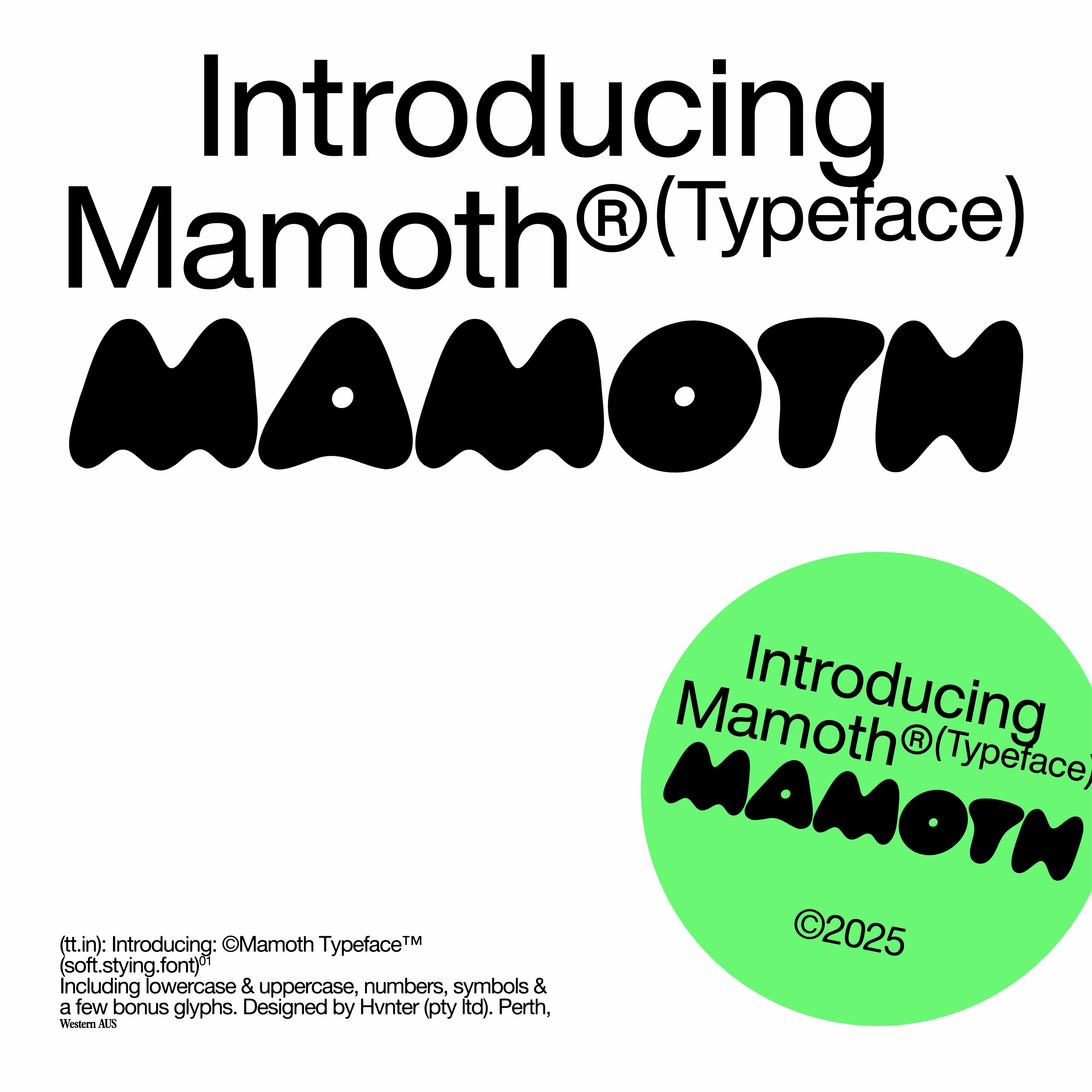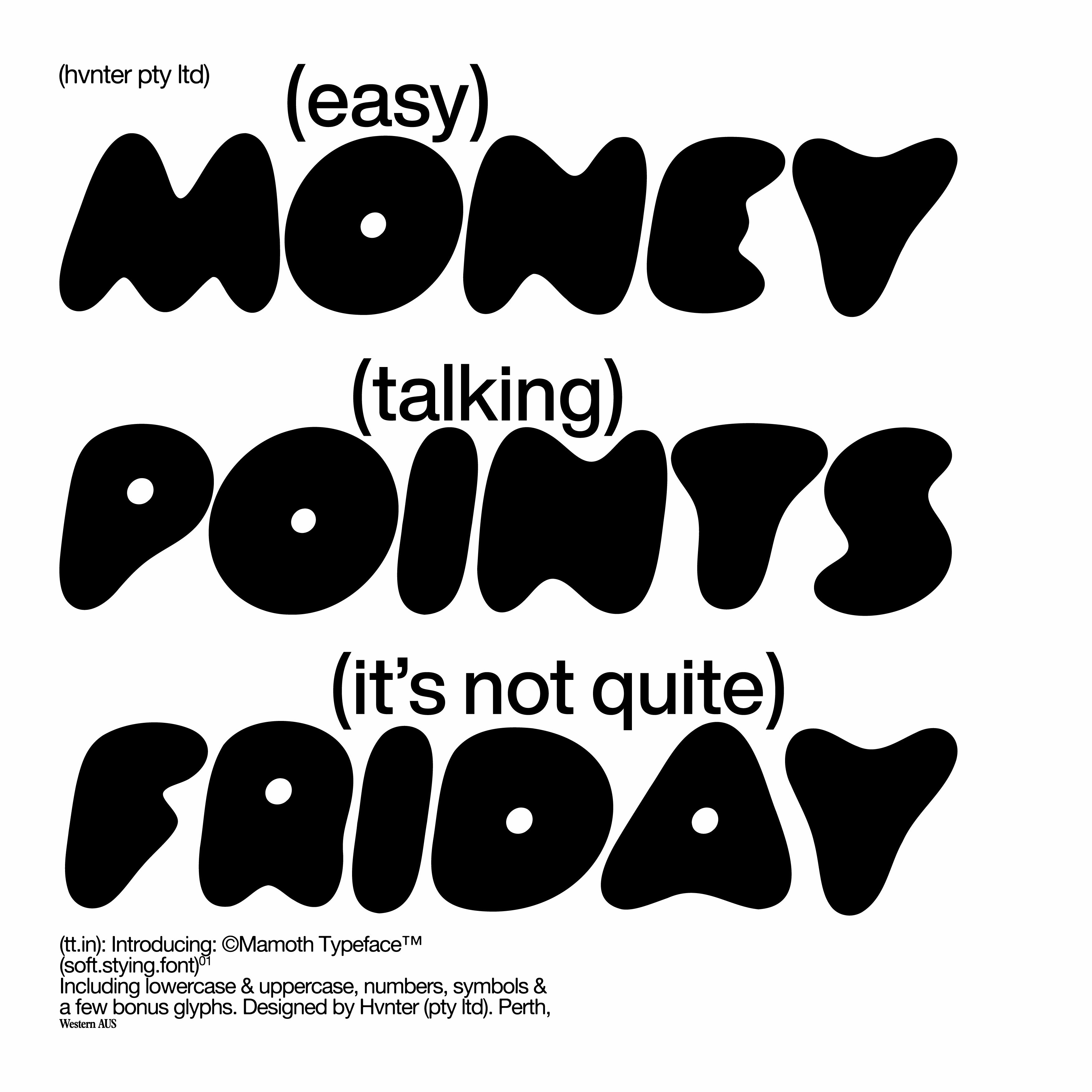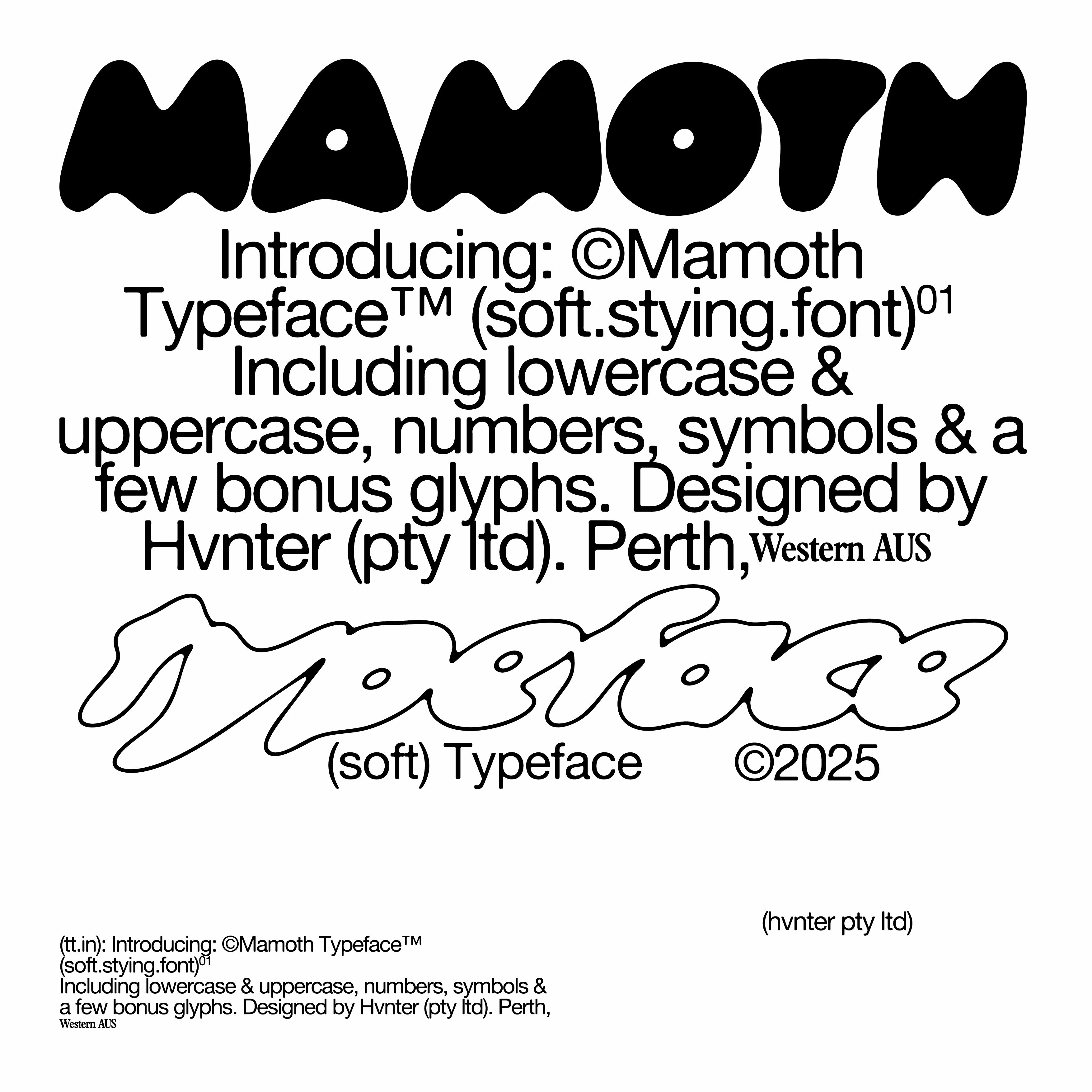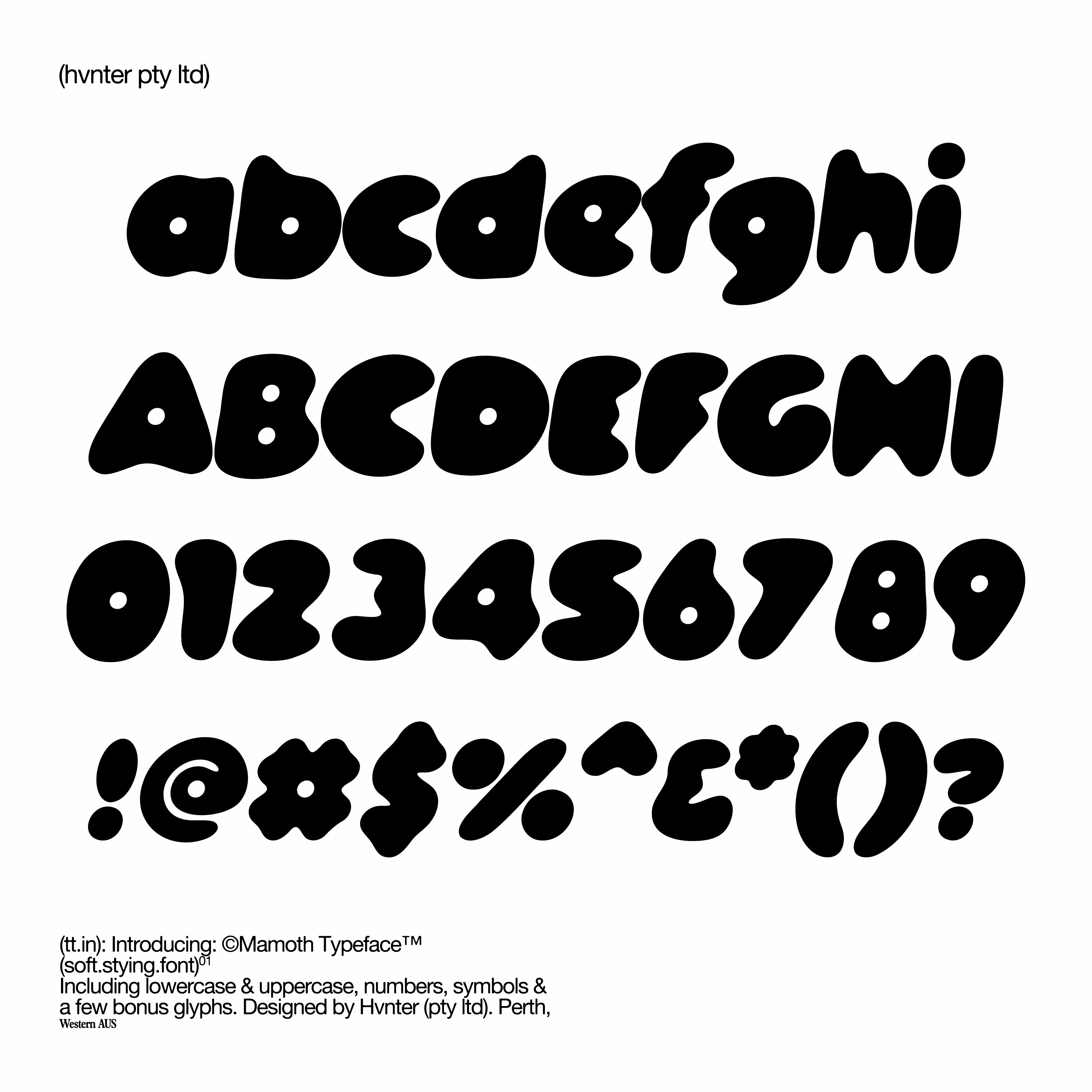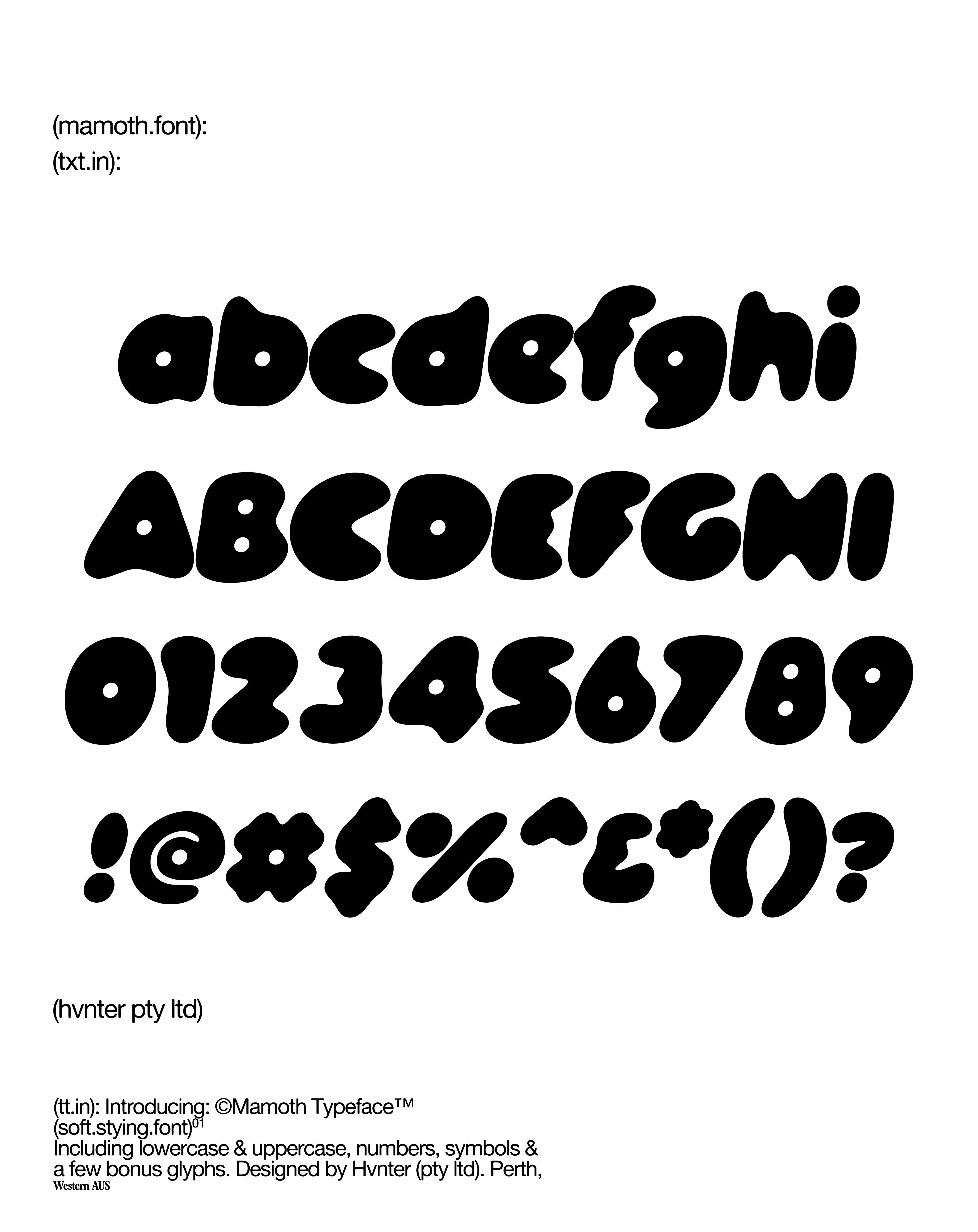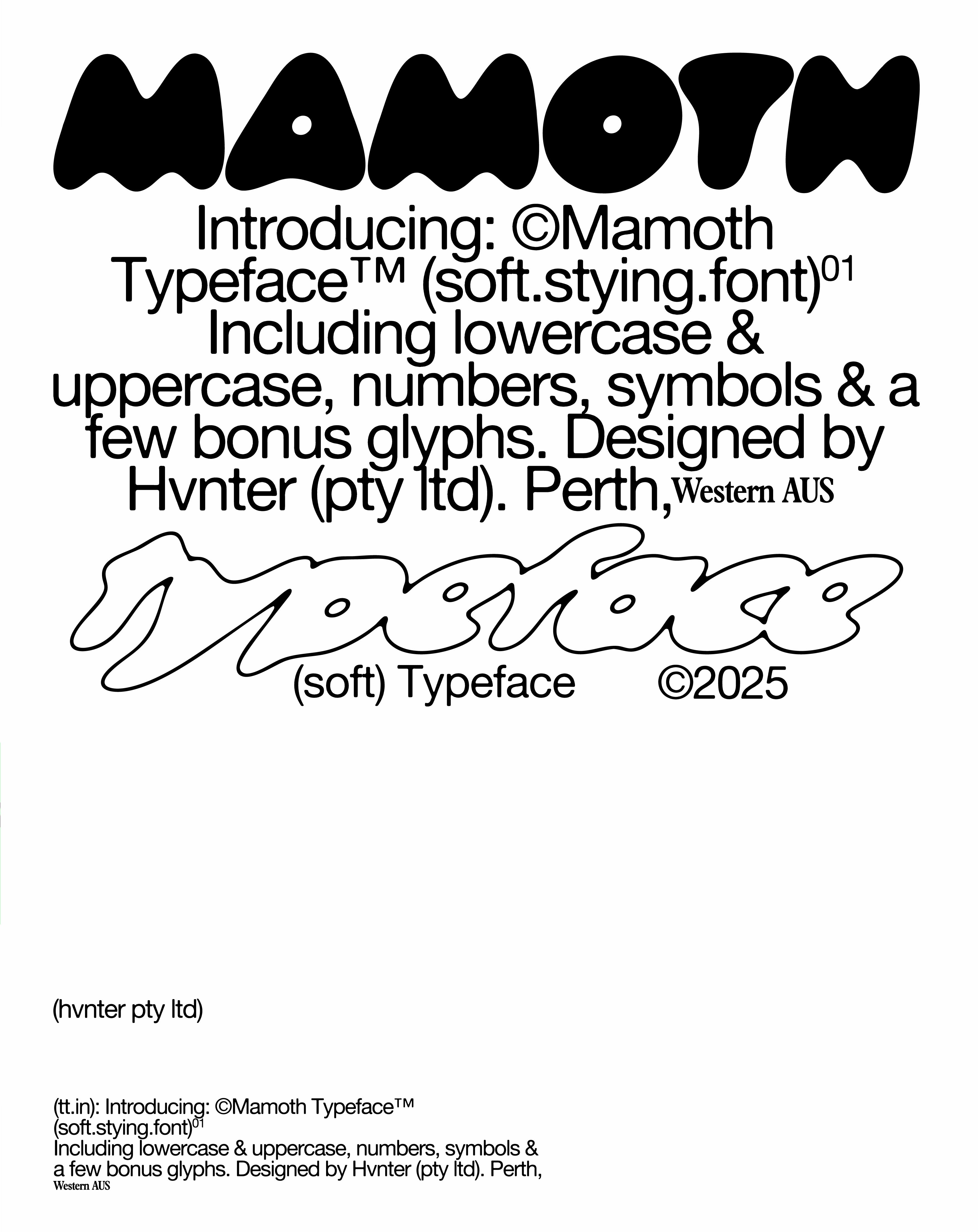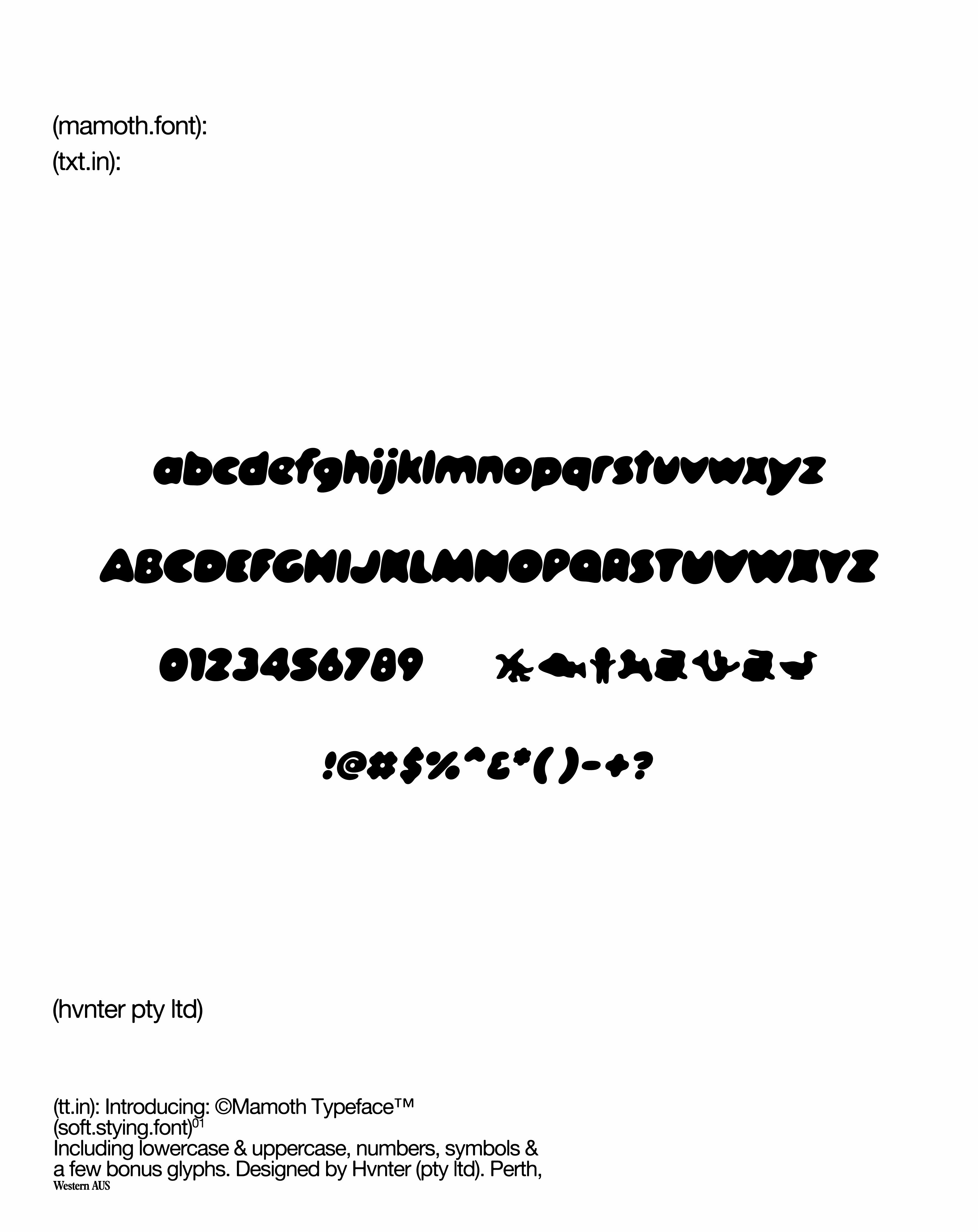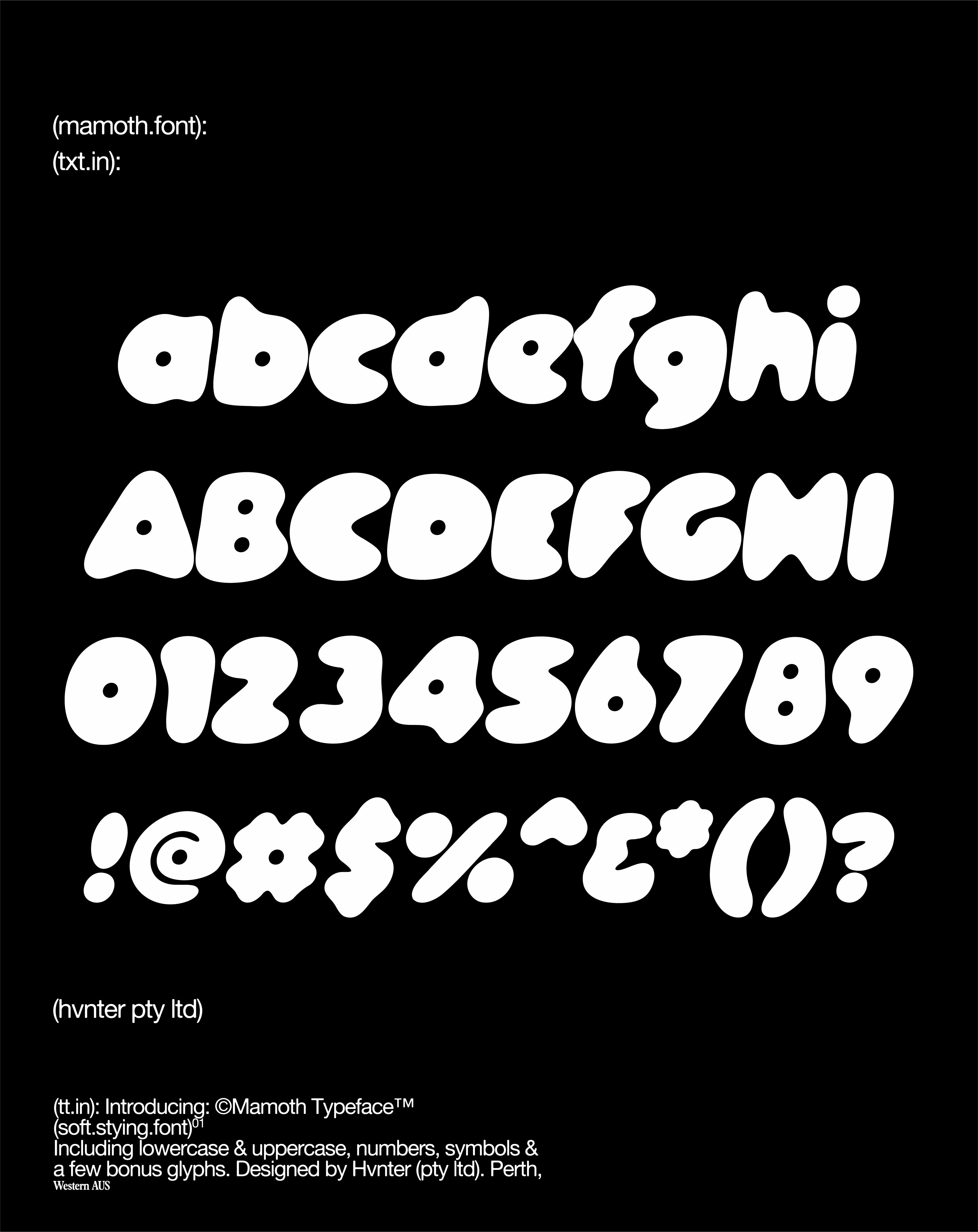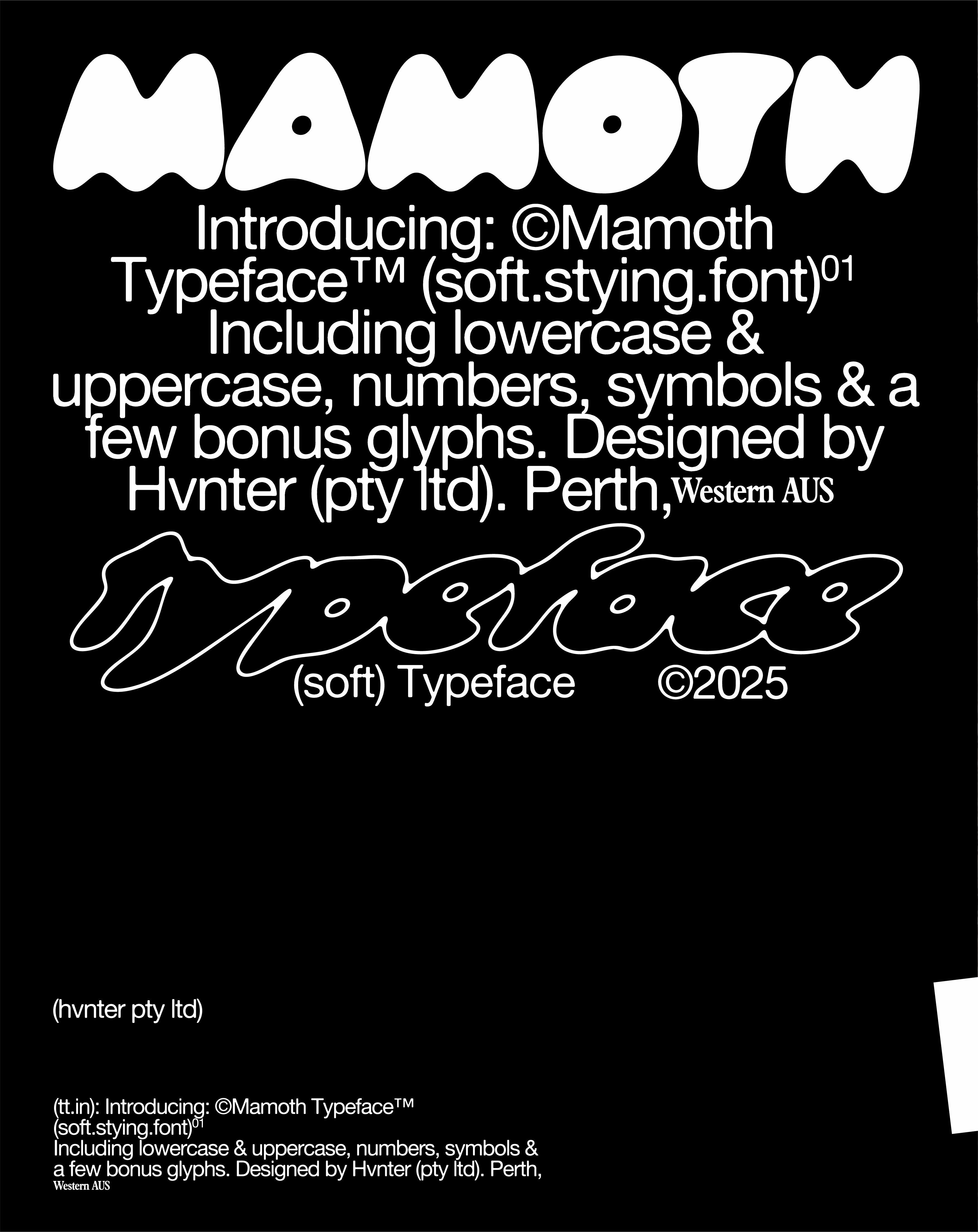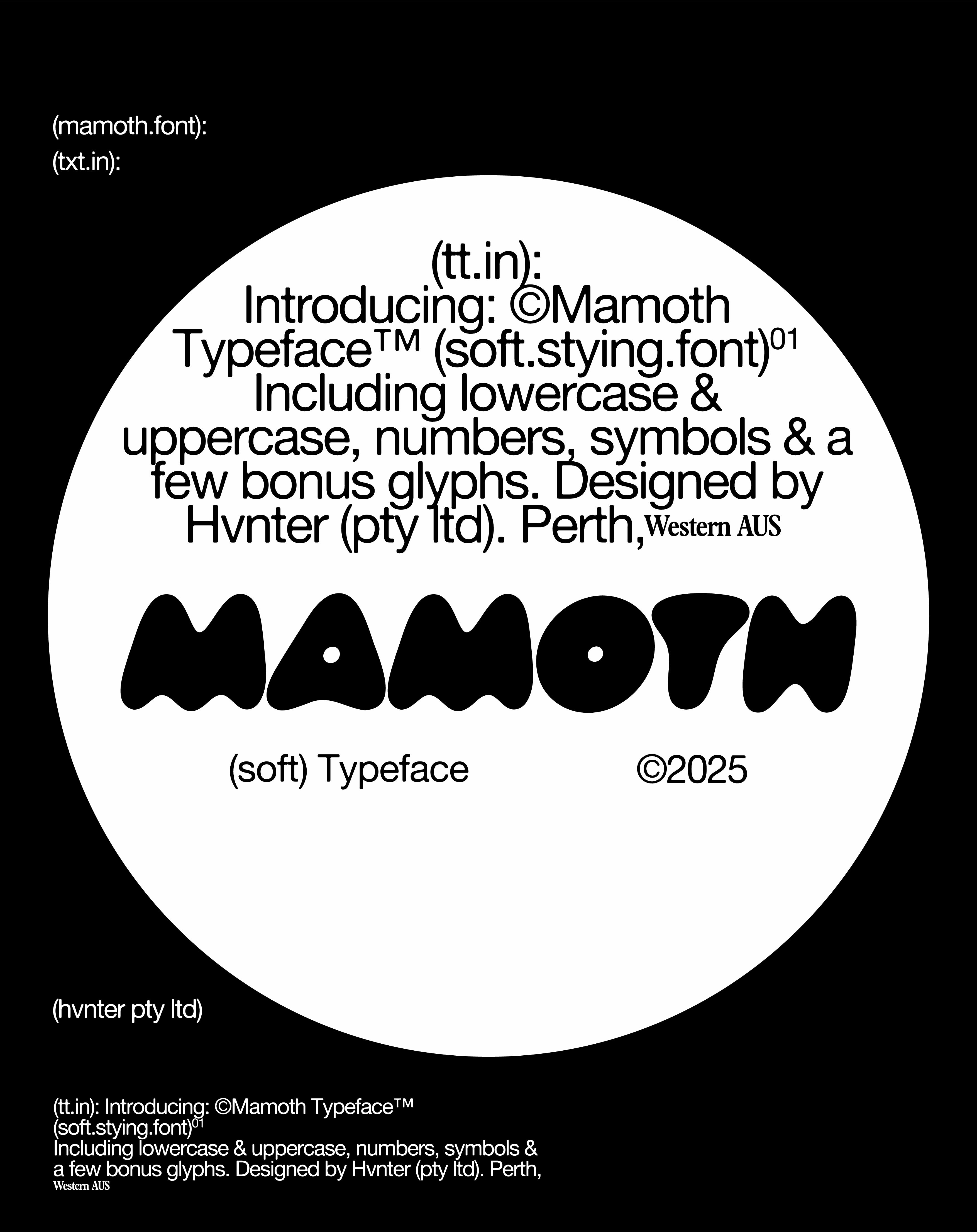
Mamoth Typeface
Mamoth Typeface is a custom softened typeface that includes one .otf font file featuring uppercase and lowercase letters (A-Z, a-z), numbers (0-9), and symbols. It is designed with a cute, bubbly aesthetic and is categorized under various font styles, including bold and hand-drawn fonts.
Ideal for playful and modern graphic design projects. Perfect for branding, social media graphics, posters, and merchandise, ensuring a soft and approachable aesthetic that resonates with audiences.